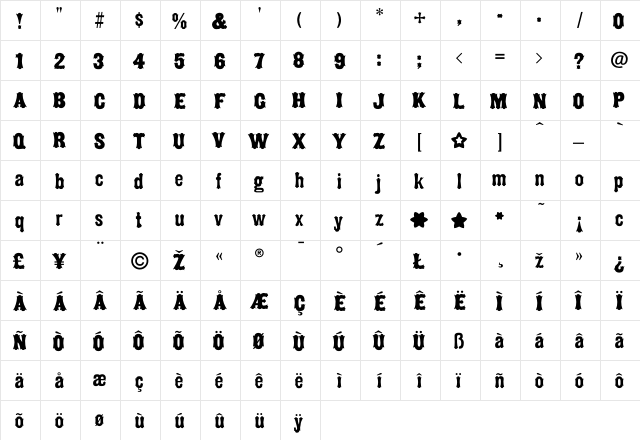
Balderdash Regular
Design Context for Balderdash Typeface
Balderdash is a composed and adaptable typeface that performs quietly and consistently across a wide range of design contexts.